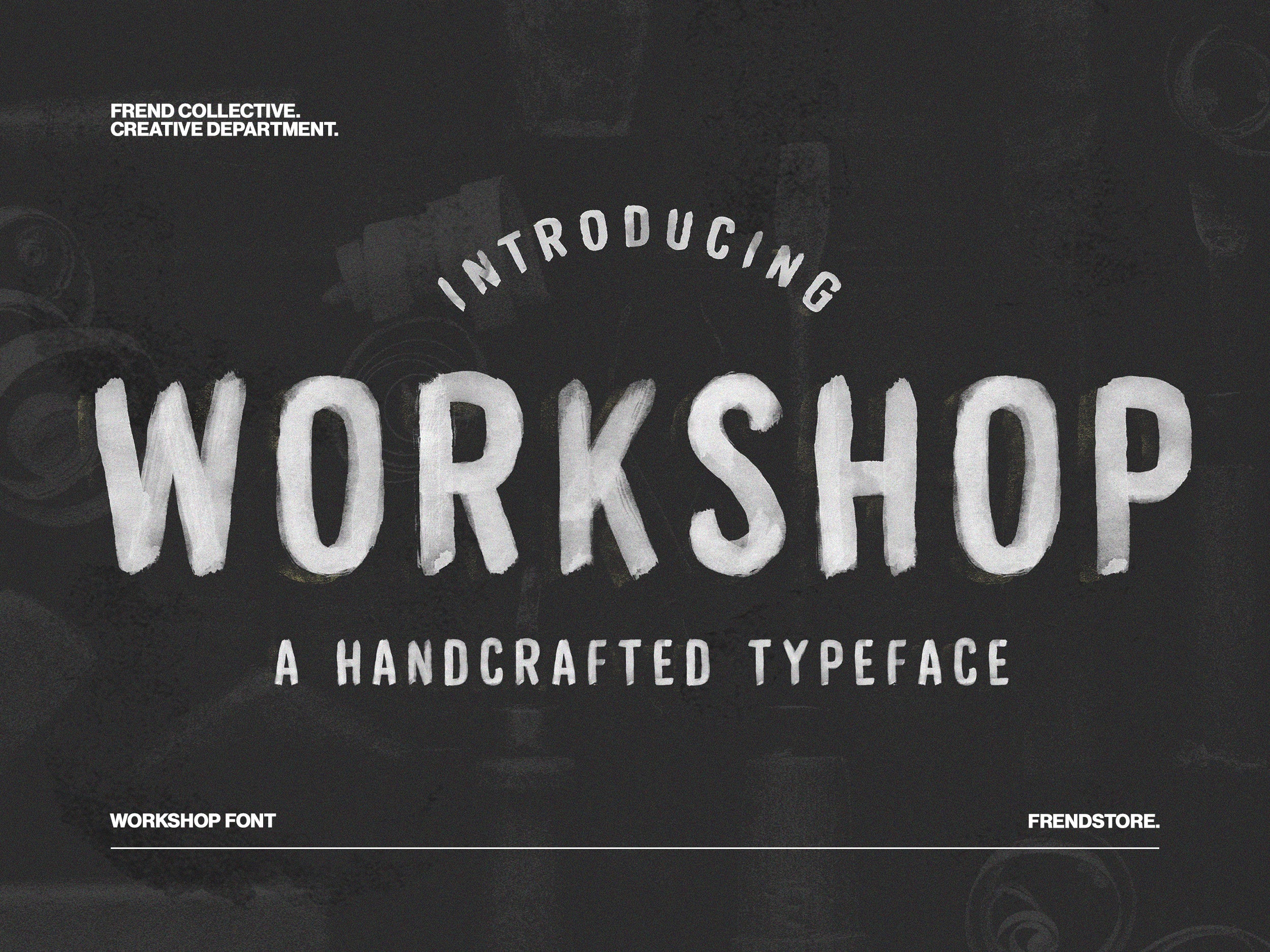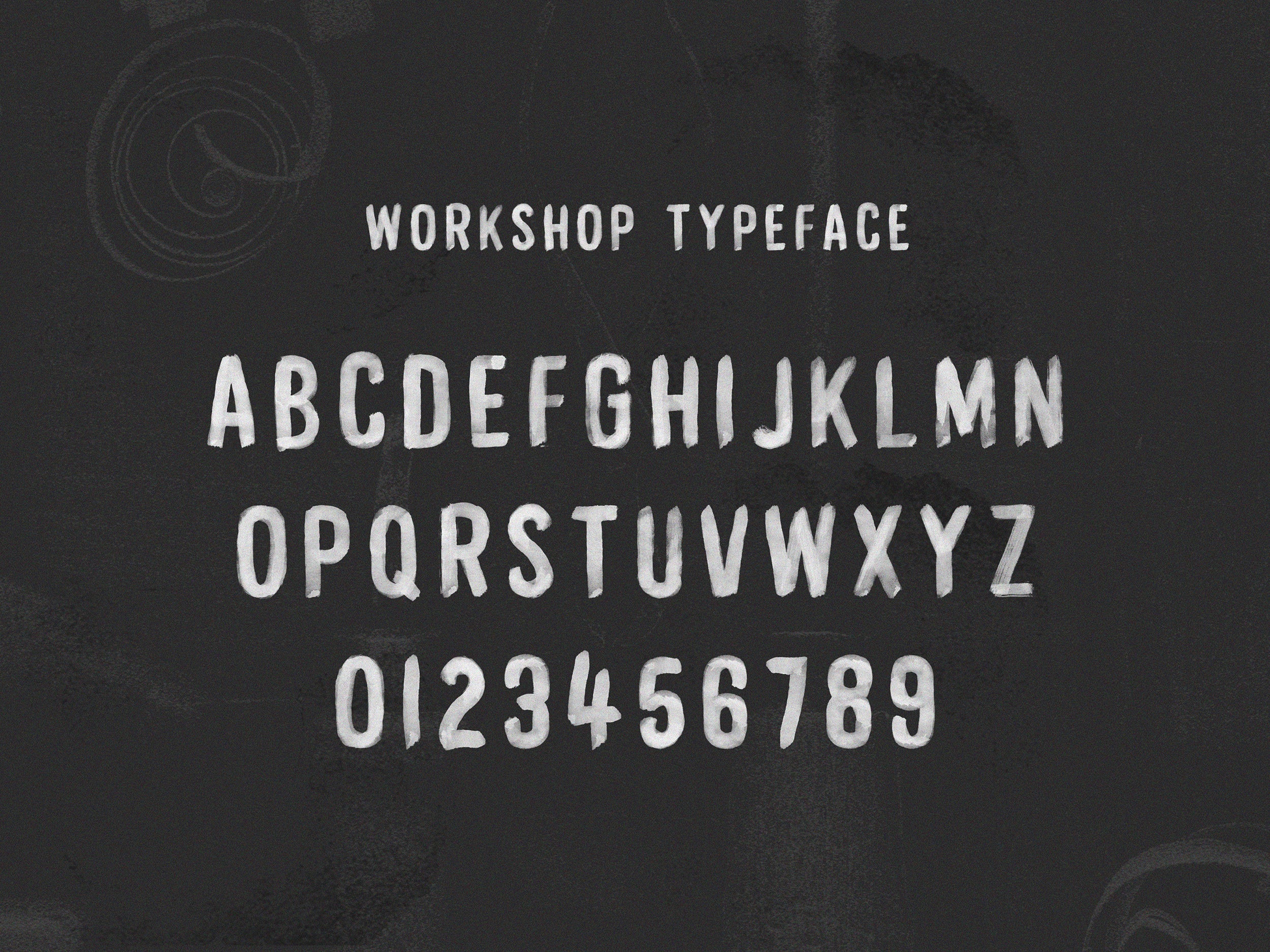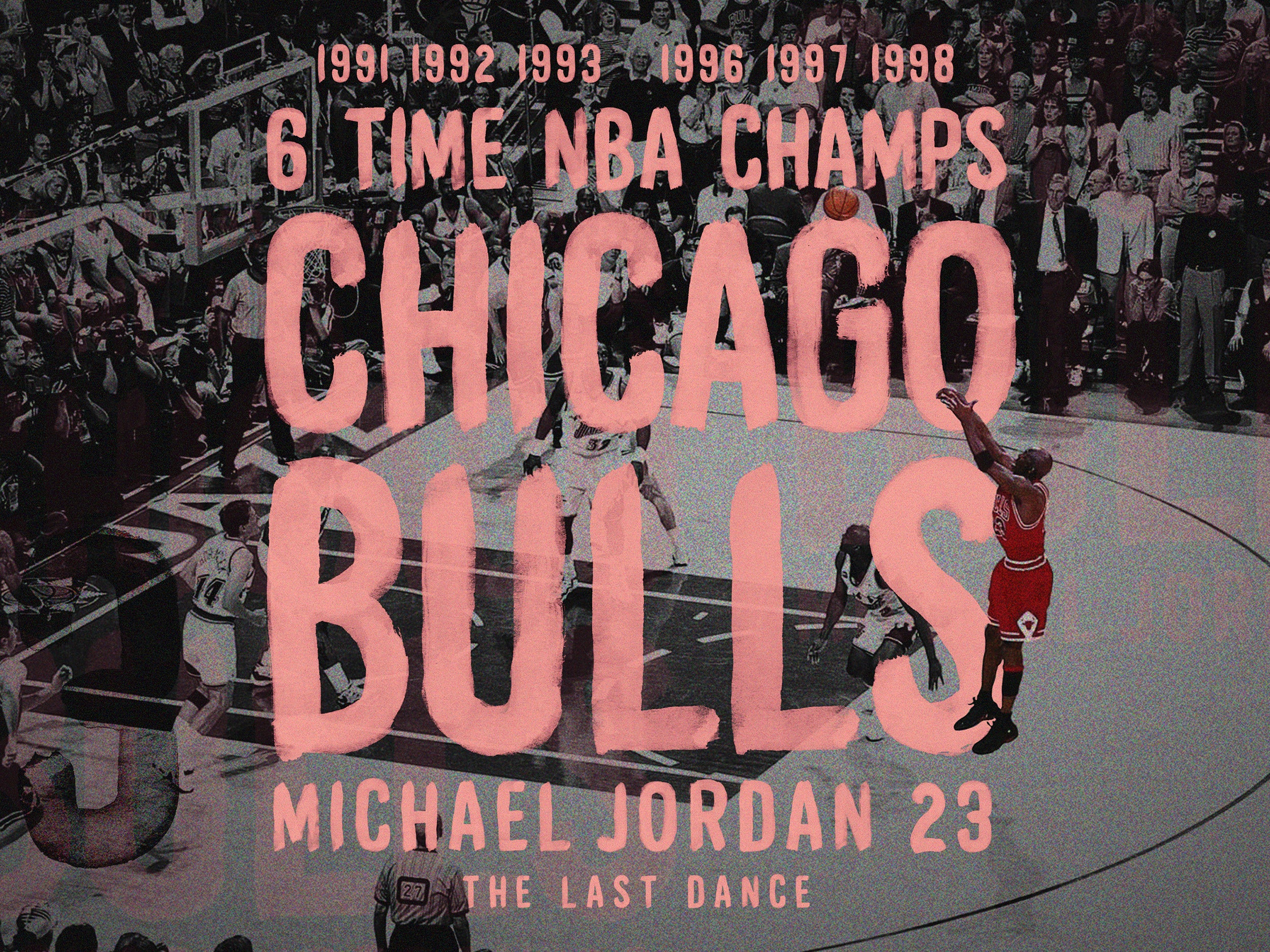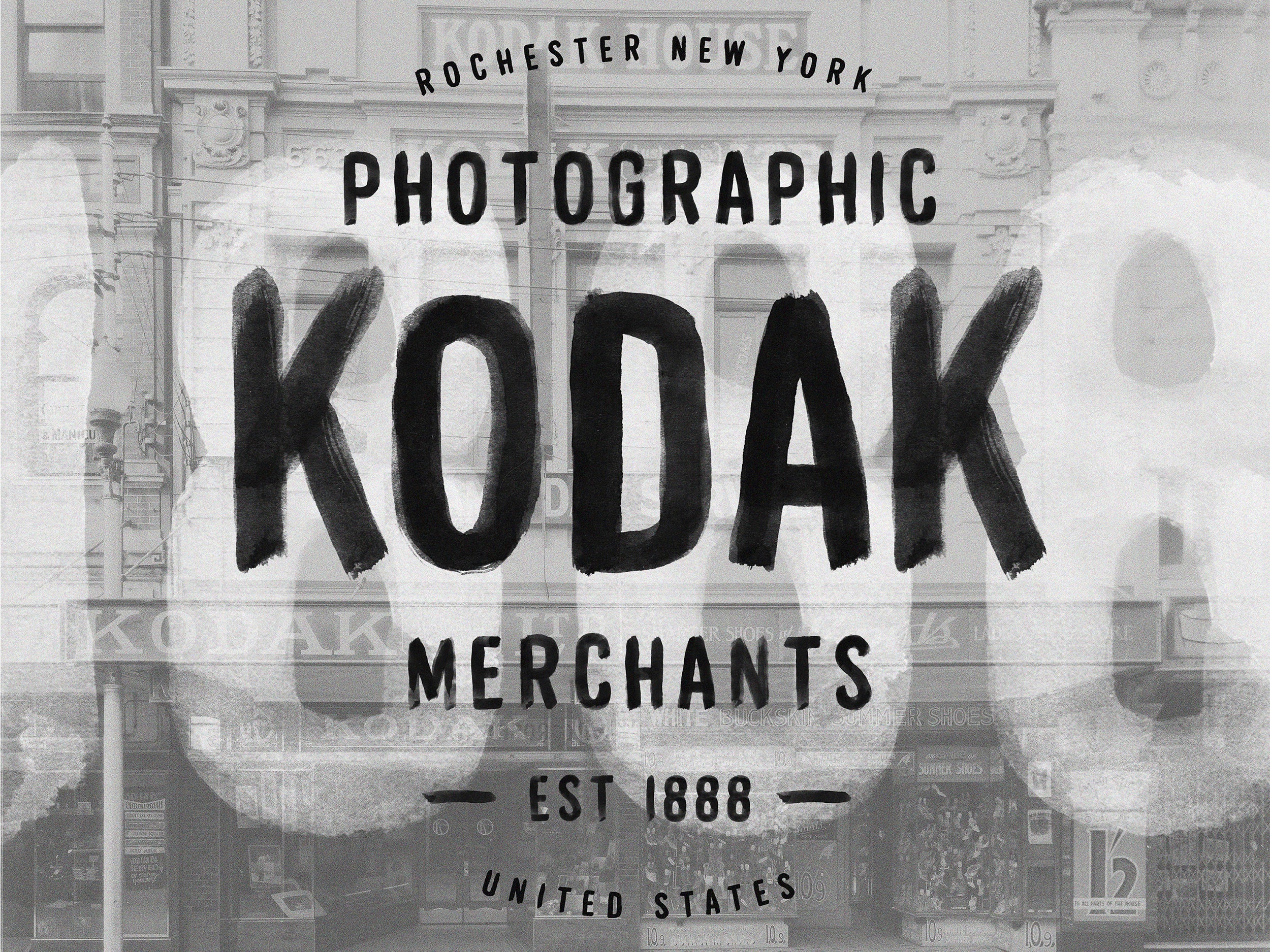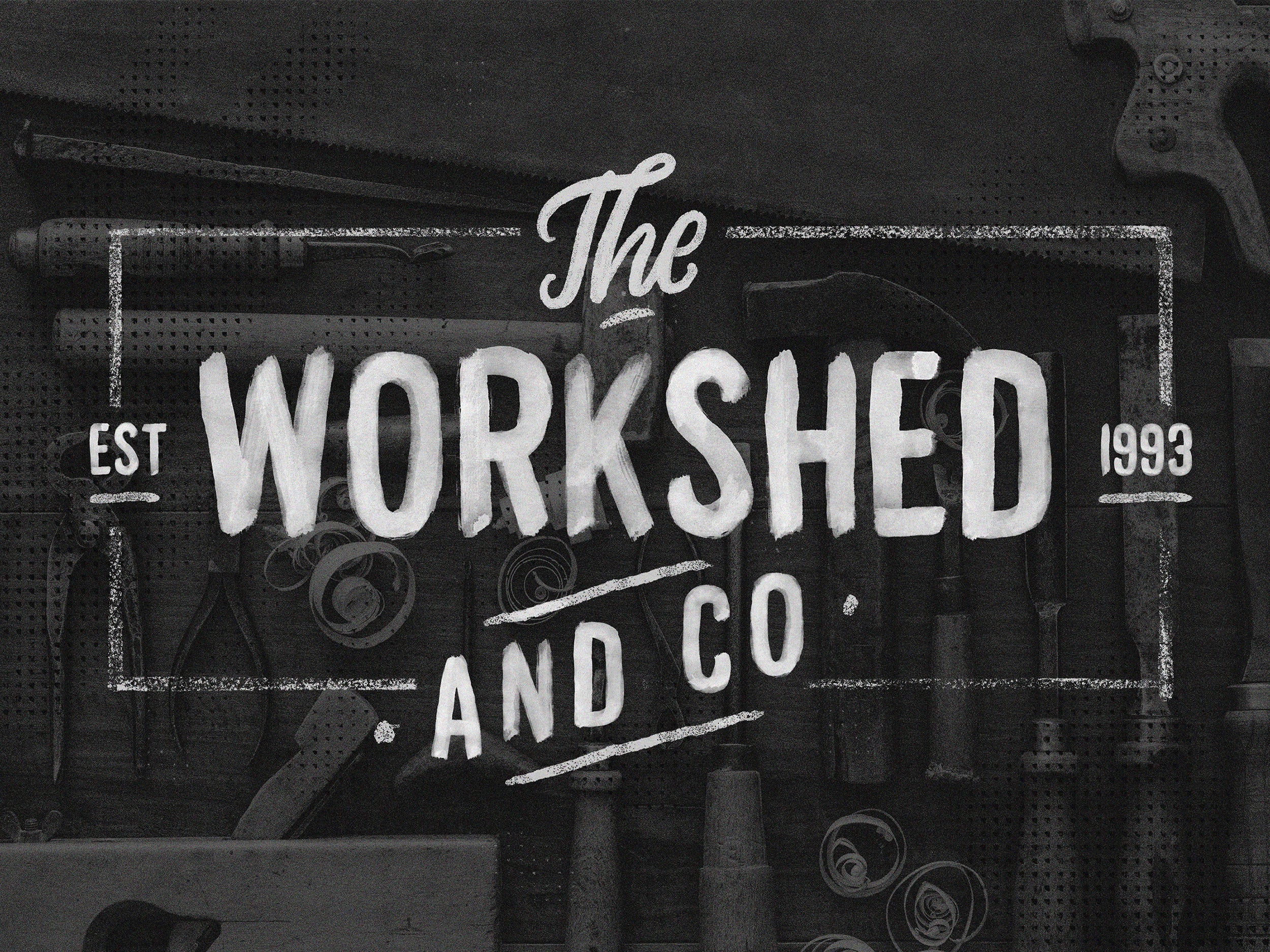
WORKSHOP FONT
Introducing Workshop Font.
Workshop Font Duo is a bold and unique sans-serif typeface, it's completely hand brushed using a paint brush and ink. This font can be used for large display headlines or any project you want to stand out! Workshop comes with 2 fonts, a Vector version and a SVG version, which allows you to see the original transparent brush strokes in each letter.
Features: All Caps Fonts + Numerals.